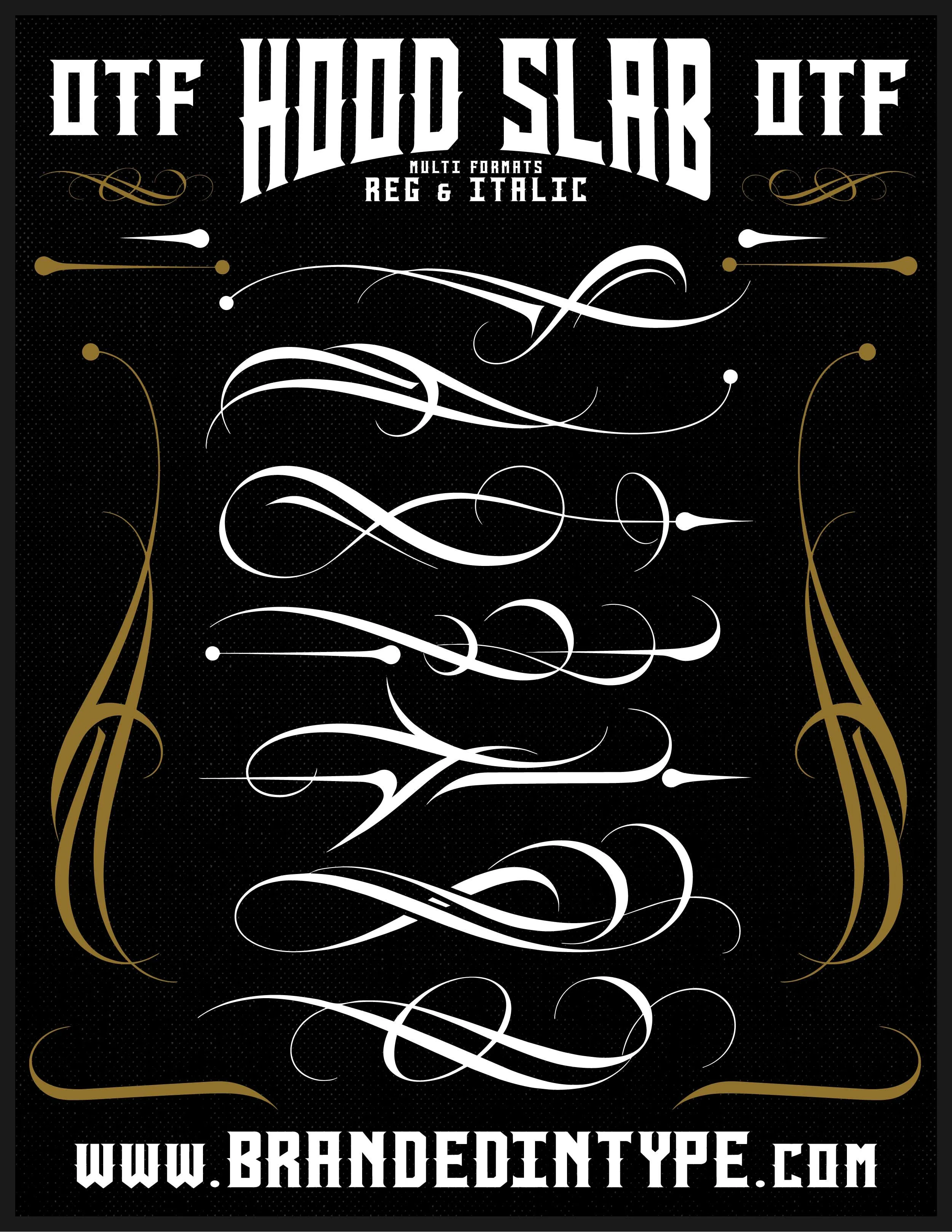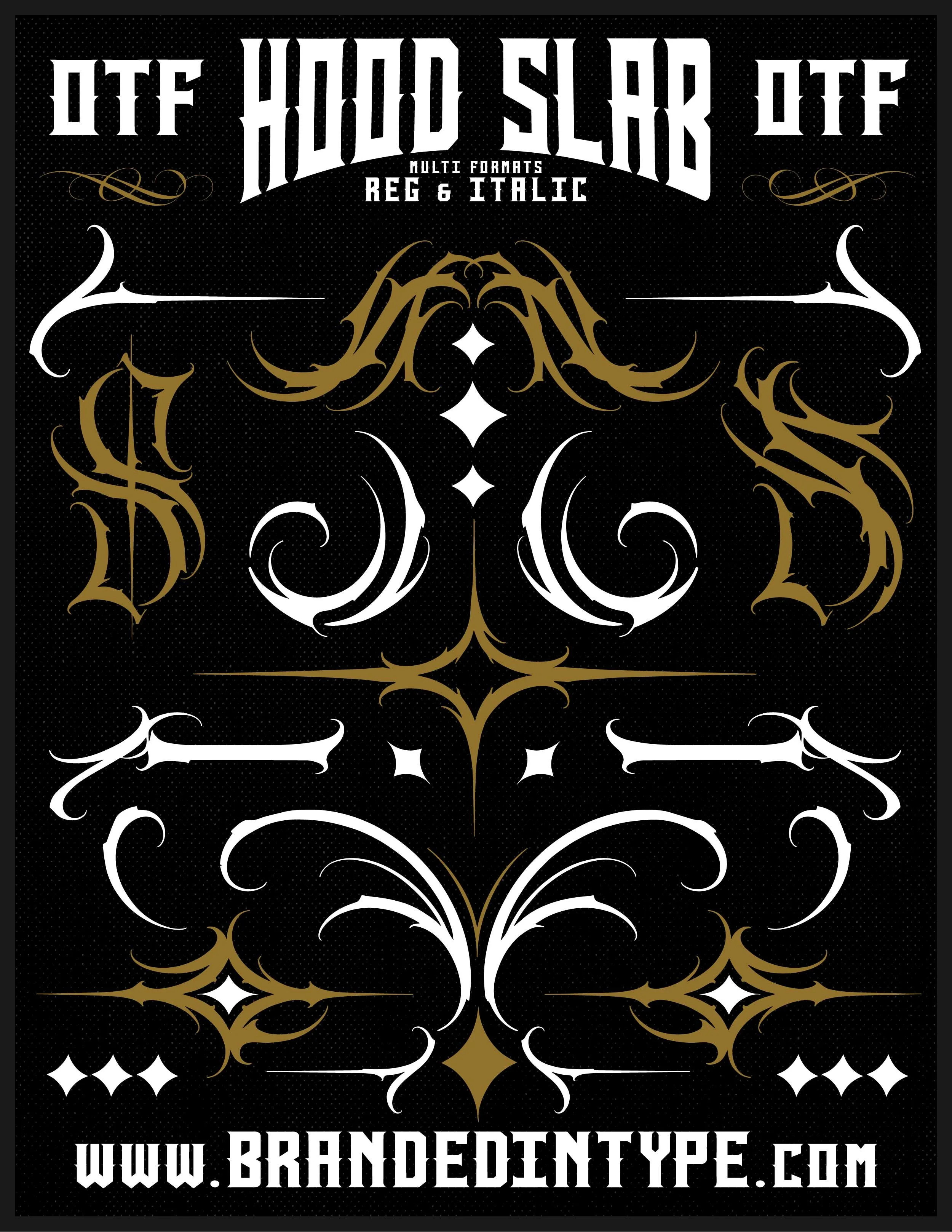
HOOD SLAB FONT + Badge Kit + Vector Graphics
The HOOD SLAB Font + Badge Kit is built different! The font alone is worth the money. As it includes multiple formats in all letters, numbers, symbols, uppercase, lowercase, & italic. Perfect for Edgy Streetwear Brand Logos, Sports Design with an edge, or just bad ass T-Shirt designs, badge designs, easy to make monograms and whatever else you can dream up.
This download is not just a font set. This is a Font Set, A Badge Creation kit, & is LOADED with premade, click and create badges with editable text, and includes a vector illustration pack for easy drag and drop usage for your badges, or whatever else you may find a use for them. AND it comes with 3 sets of high end flourishes, filagree and decorative blackletter tattoo style swooshes to really help you make next level design QUICK!